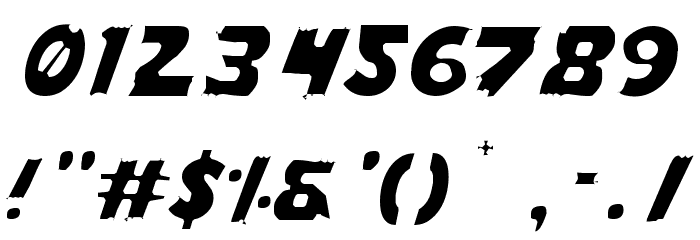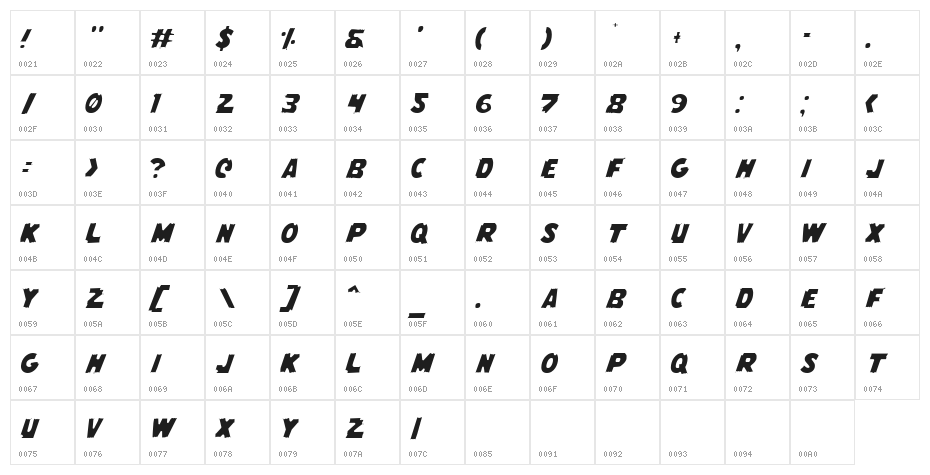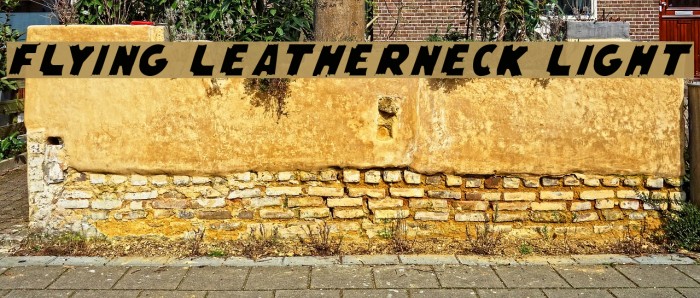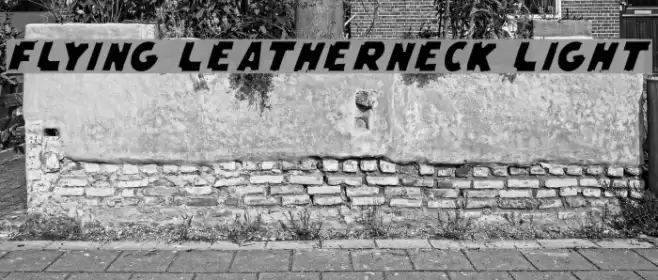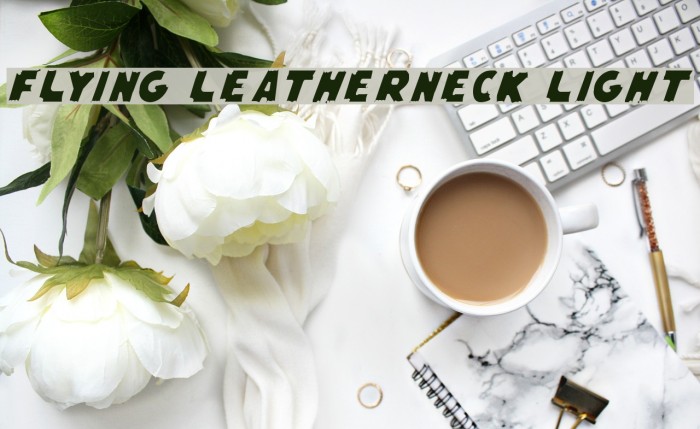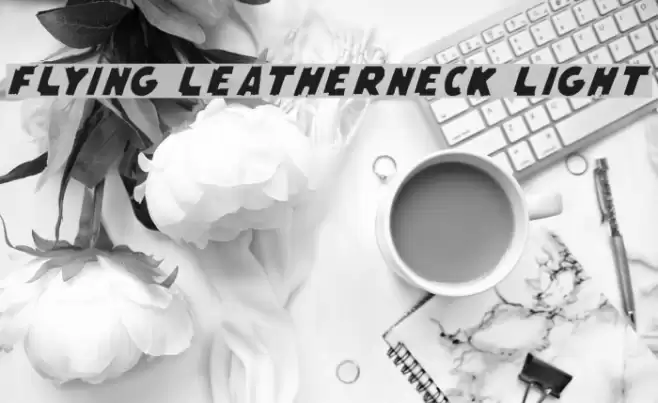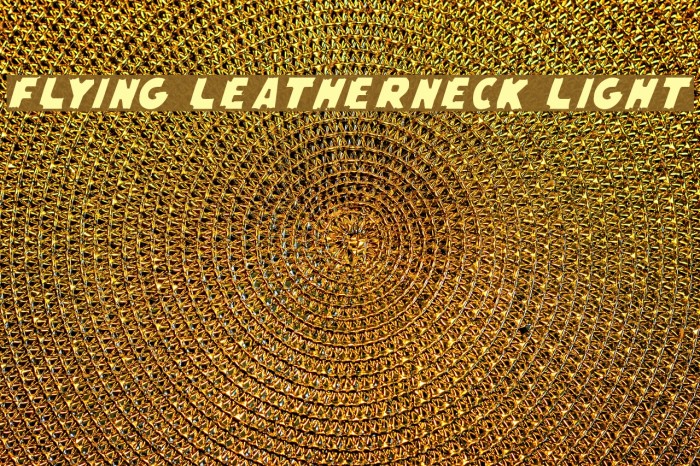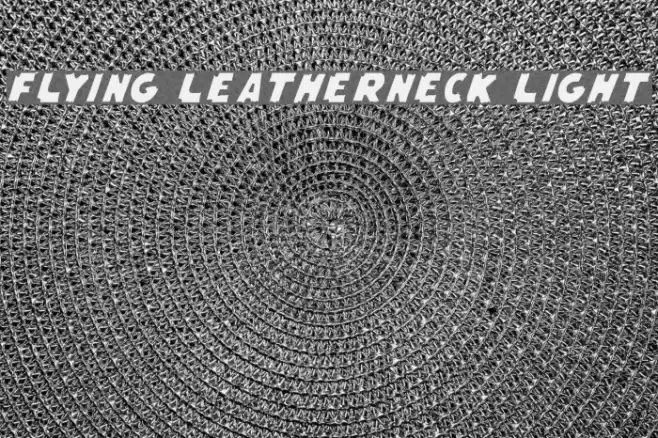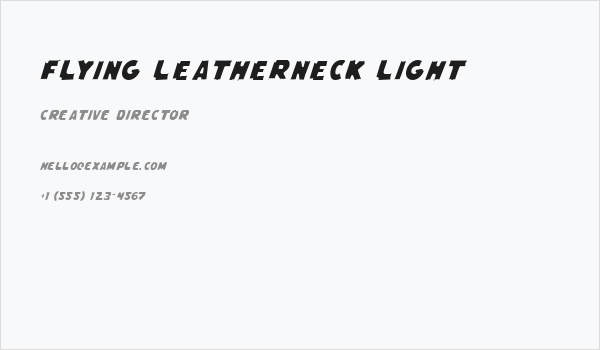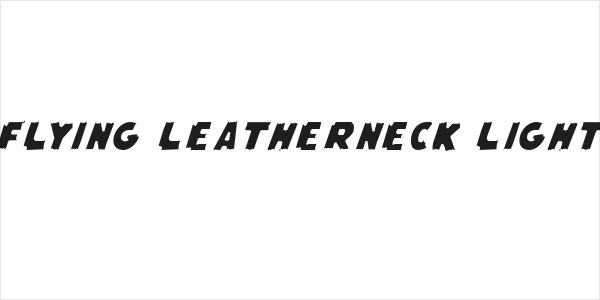
Flying Leatherneck Light Font
Flying Leatherneck Light Description
This font features a bold and dynamic style with a distressed, rugged appearance. The characters are slightly slanted, giving a sense of motion and energy. The edges are rough and uneven, adding a gritty, vintage feel. This font is highly legible despite its decorative elements, making it suitable for impactful designs. The uppercase and lowercase letters maintain a consistent style, with numbers and special characters complementing the overall aesthetic. The font's unique character is ideal for projects that require a strong, adventurous look.
| Proposed Projects | Ideal for posters, branding, and designs that need a strong, adventurous look. |